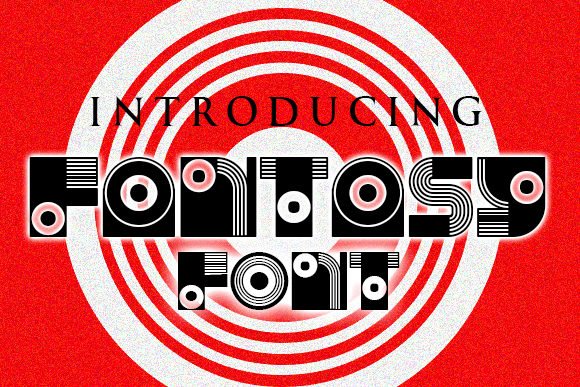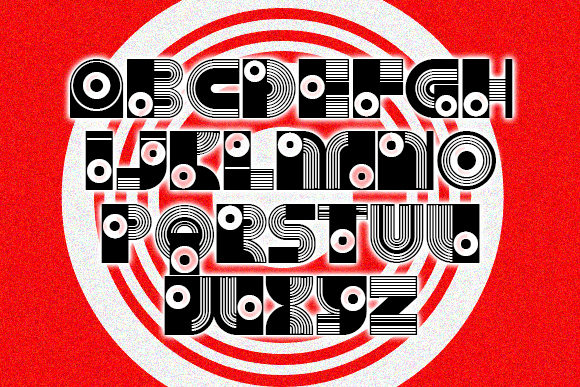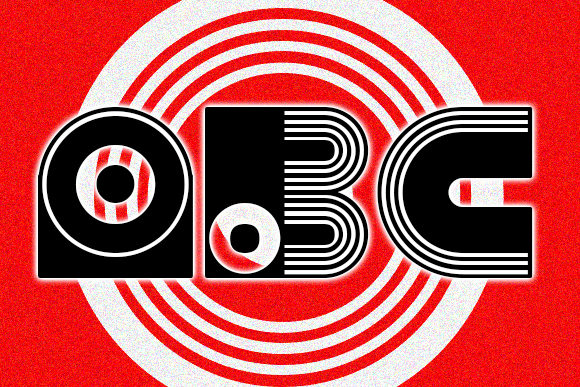
Unleash Your Creativity with Fantasy Font
You know that moment when you’re working on a project and you’re stuck, trying to find the perfect font to bring your vision to life? That’s where Fantasy Font comes in – a game-changing display font that’s about to revolutionize the way you design.
With its sleek Bauhaus feel and modern style, Fantasy Font is the perfect addition to any design project. Whether you’re working on a logo, a poster, or a website, this font is sure to add a touch of sophistication and elegance. And the best part? It’s incredibly versatile, making it a valuable asset for designers of all levels.
Fantasy Font Key Features
- Unique Character Set: Fantasy Font features a wide range of unique characters, including fantasy symbols, ornaments, and initial letters, making it ideal for creative projects and designs.
- Style Variations: Fantasy Font comes in multiple styles, including Regular, Bold, Italic, and Bold Italic, providing flexibility for designers to choose the perfect font for their project.
Designer Review: Fantasy Font
Overall, I’m quite pleased with Fantasy Font. The designer has put in a lot of effort to create a visually appealing font that’s perfect for fantasy and sci-fi themed projects. ✨ The font’s unique blend of mystical and futuristic elements really sets it apart from other fonts in its category.
- The font’s bold and expressive lines make it perfect for headings and titles.
- The intricate details and ornaments add a level of sophistication and elegance to any design.
- The font’s wide range of weights and styles makes it highly versatile and adaptable to different design needs.
However, I do have a few concerns about the font’s limitations. ⚠️ The font’s complexity can sometimes make it difficult to read at smaller font sizes, and the intricate details can be overwhelming in certain contexts.
While Fantasy Font may not be perfect, it’s definitely a great addition to any designer’s toolkit. With a little caution and creativity, it can be used to create truly magical and immersive designs. I’d highly recommend it for anyone working on fantasy or sci-fi projects.
Getting the Most Out of Fantasy Font
Use Fantasy Font to add a touch of magic to your designs, from fantasy novels to video game titles. Experiment with different font sizes, colors, and styles to achieve the desired effect.
Fantasy Font is perfect for:
- Fantasy novels and book covers
- Video game titles and menus
- Role-playing game characters and NPCs
- Magical and mystical themes